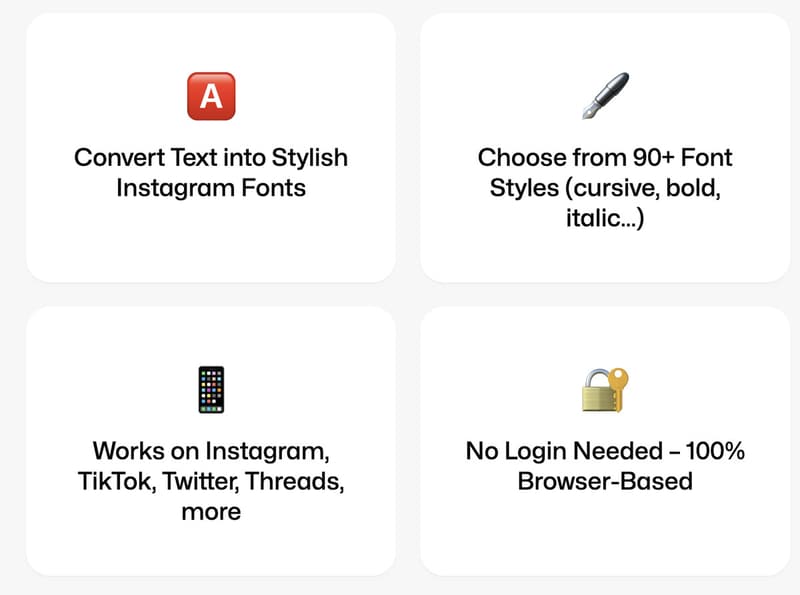
Social media users often customize profile bios, captions, and posts to create a distinctive visual identity -- Instagram Fonts Generator is a text styling tool that converts standard text into decorative Unicode-based font variations for social media use.
The platform generates multiple text styles, including bold, cursive, aesthetic, and symbol-enhanced formats. Users can enter text, browse different style variations, and copy the resulting output for use across social platforms.
By transforming plain text into visually distinctive formats, the tool supports profile personalization and content customization without requiring graphic design software. The generated text can be pasted into bios, captions, stories, and other text fields that support Unicode characters. Instagram Fonts Generator is aimed at social media creators, influencers, marketers, brands, and everyday users seeking more visually distinctive profiles and posts.
Instagram Fonts Generator Creates Stylized Text For Social Profiles
Unicode Personalization — Decorative Unicode text is expanding low-cost identity customization across platforms, creating space for lightweight tools that deliver visual differentiation without design software.
Creator Profile Optimization — Social bios and captions are becoming branded micro-surfaces where stylized text can improve recognition, memorability, and audience engagement for creators and marketers.
No-code Visual Branding — Accessible formatting utilities are reducing reliance on professional creative workflows, enabling automated brand expression for users with limited design resources.
Social Media — Platform-native text customization introduces new opportunities for engagement features, creator monetization tools, and profile-enhancement marketplaces.
Digital Marketing — Campaign teams can benefit from scalable stylistic text variations that make organic posts, influencer captions, and brand bios more visually distinctive.
Creator Economy — Independent creators increasingly rely on simple personalization utilities, supporting demand for affordable tools that strengthen personal branding and content differentiation.